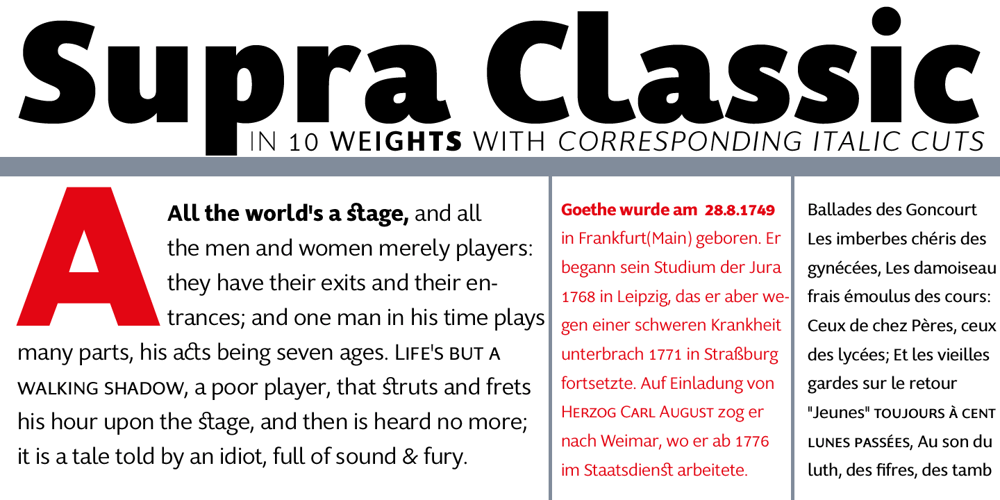
Supra Classic
Supra Classic font
Supra Classic Font Family was designed by Gert Wiescher and published by Wiescher Design. Supra Classic contains 40 styles and family package options. »SupraClassic« – designed by Gert Wiescher in 2014 – has 10 weights with corresponding italic cuts. The design has elegant contrast in the up- and downstrokes which makes for better legibility and personality. The dominant x-height with its high ascenders make for easy reading of long copy. The heavy and x-light weights are great for elegant headlines. »SupraClassic« is an OpenType family for distinctive professional typography with an extended character set of over 700 glyphs and extensive kerning. It supports more than 40 Central- and Eastern-European as well as many Western languages. Ligatures, different figures, fractions, currency symbols and small caps can be found in all cuts.